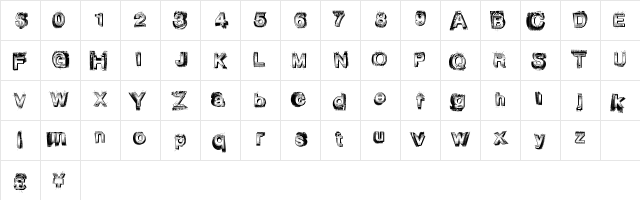
VegasNights Regular Free Font
VegasNights Regular
Foundry: Xerographer Fonts
Designer: Xerographer Fonts Max Infeld
Design Context for VegasNights
VegasNights is a composed and adaptable typeface that performs quietly and consistently across a wide range of design contexts.